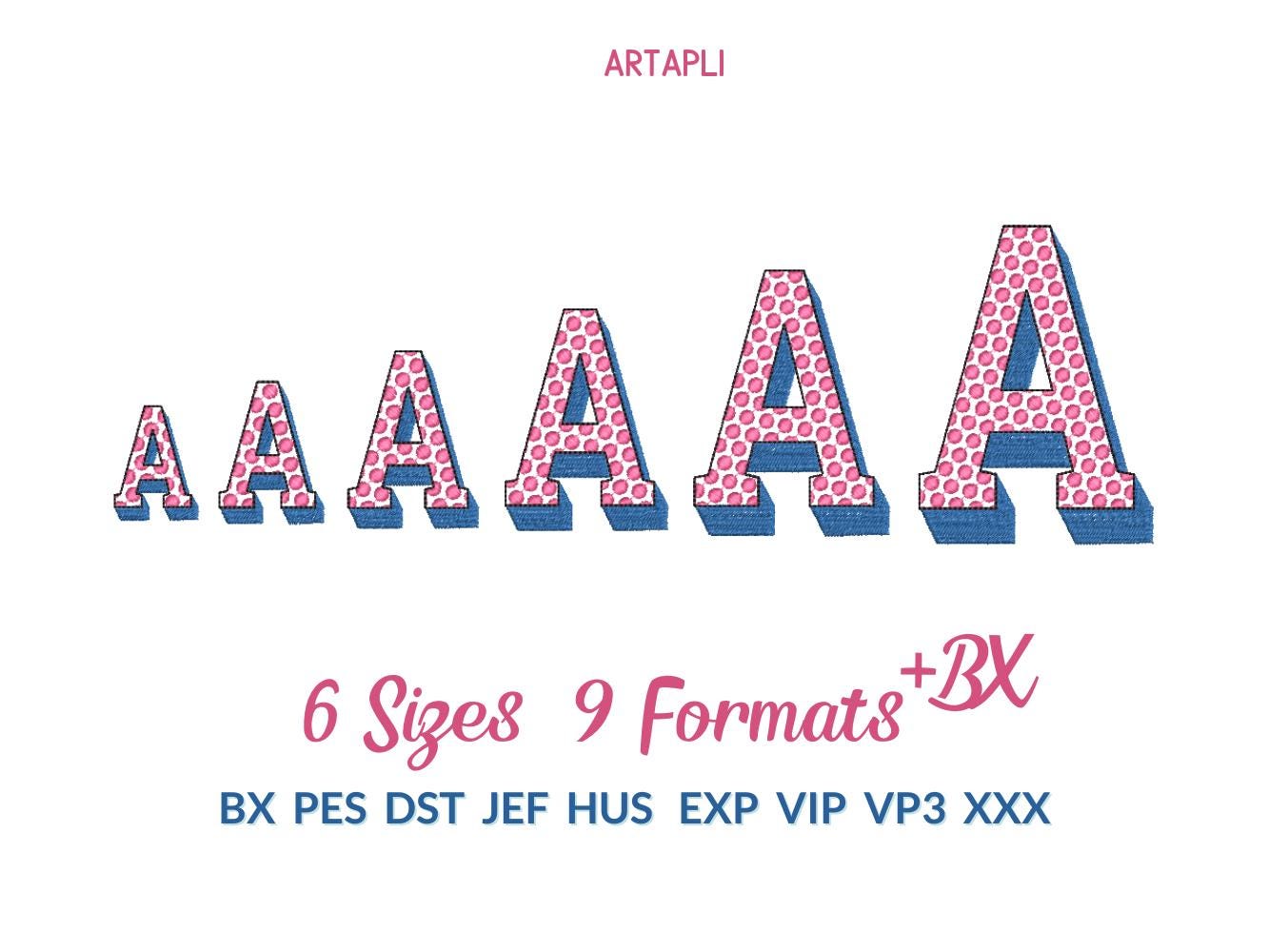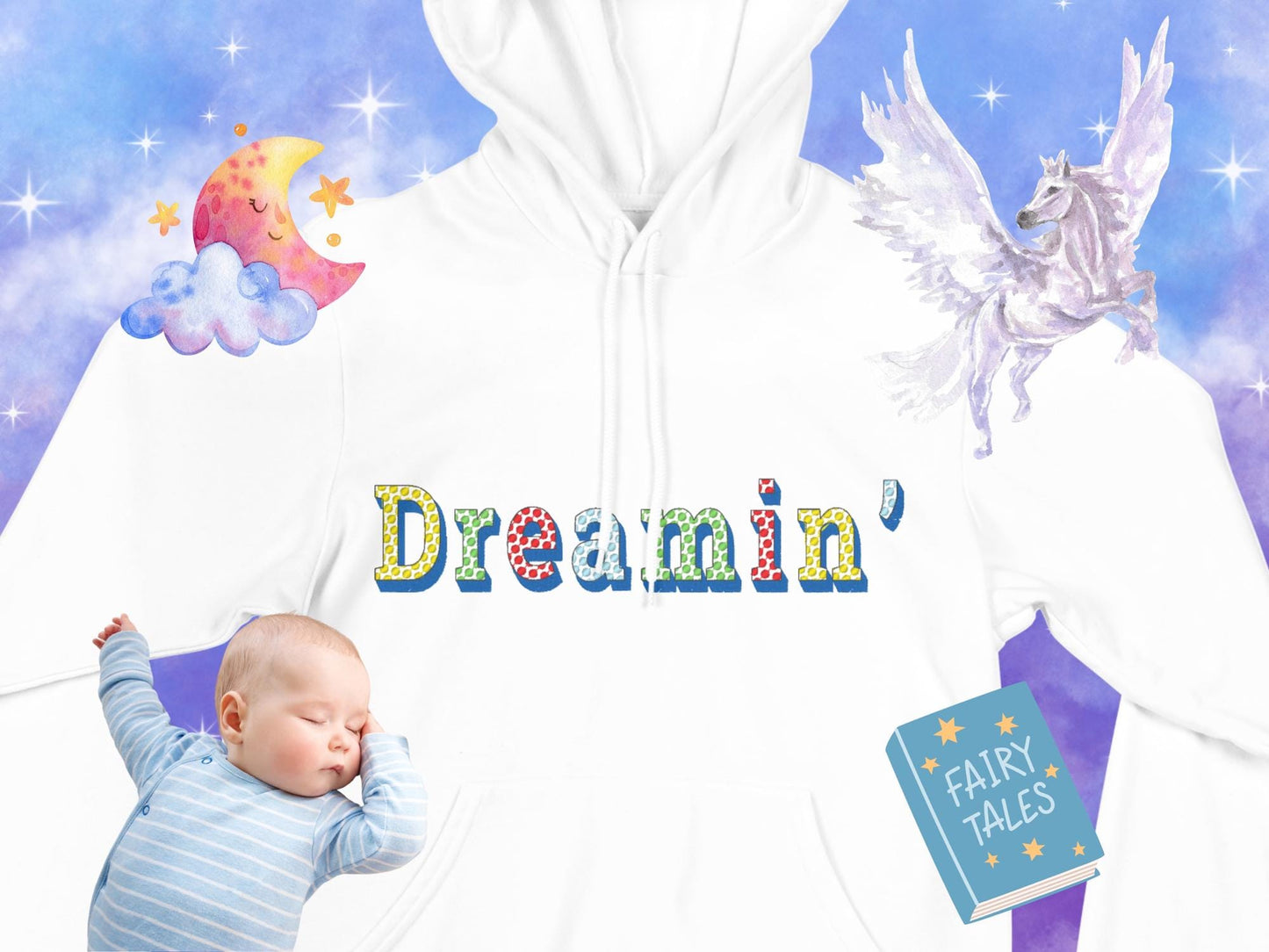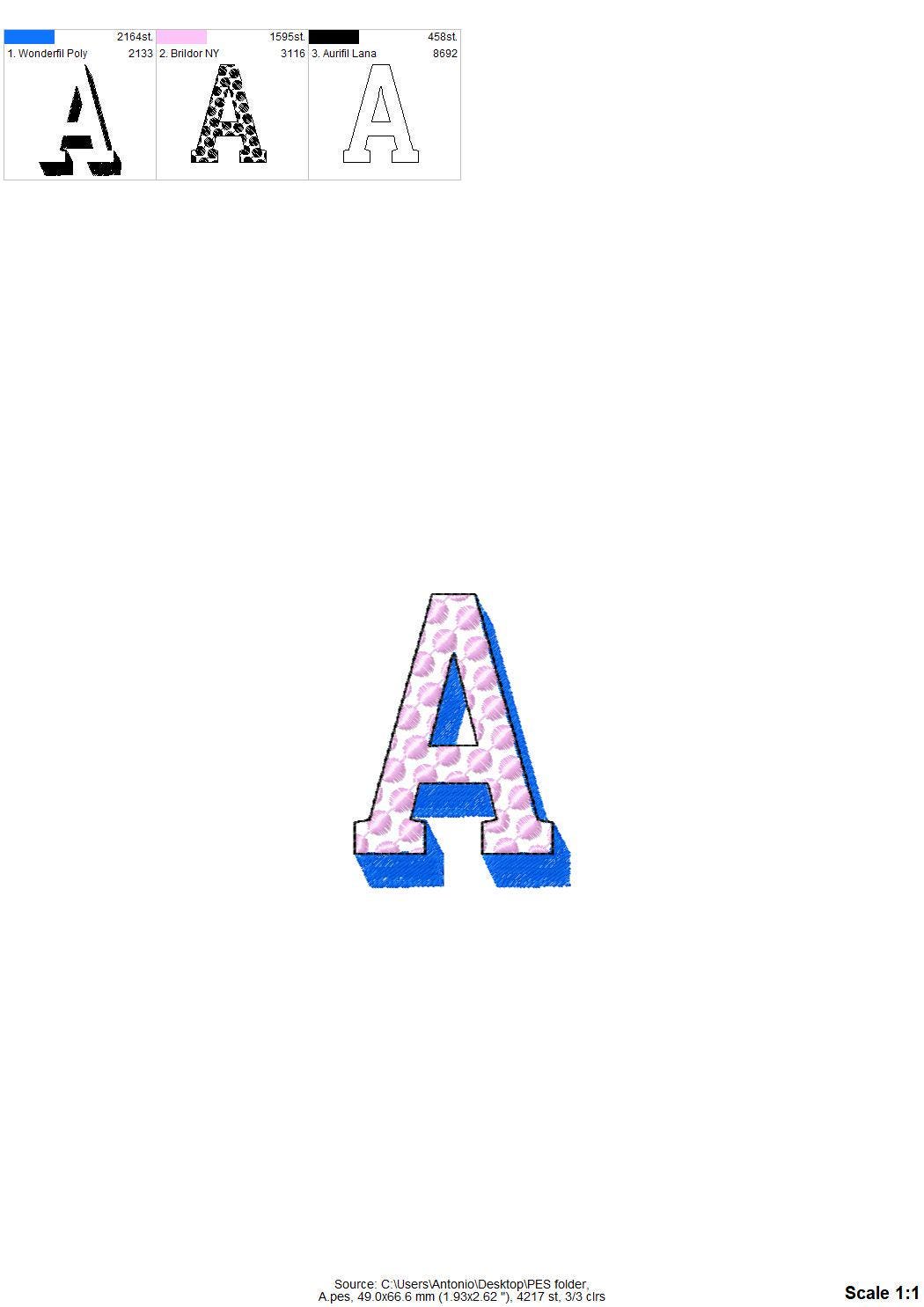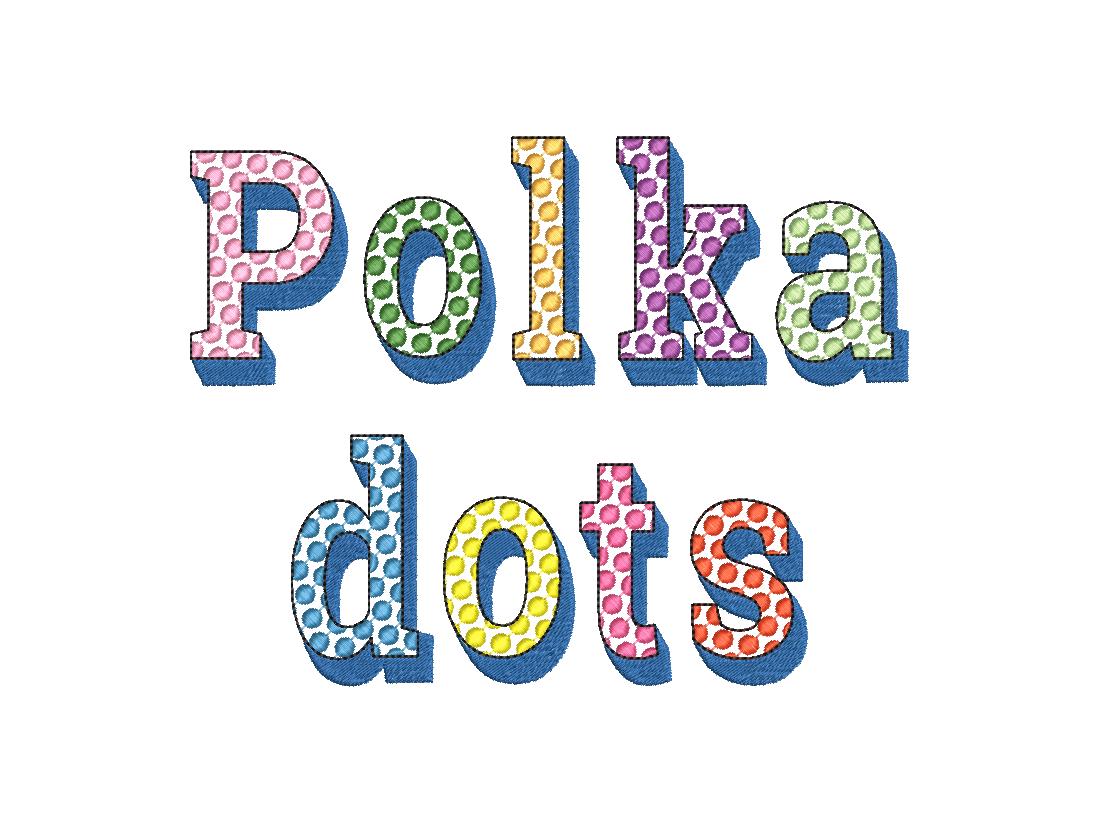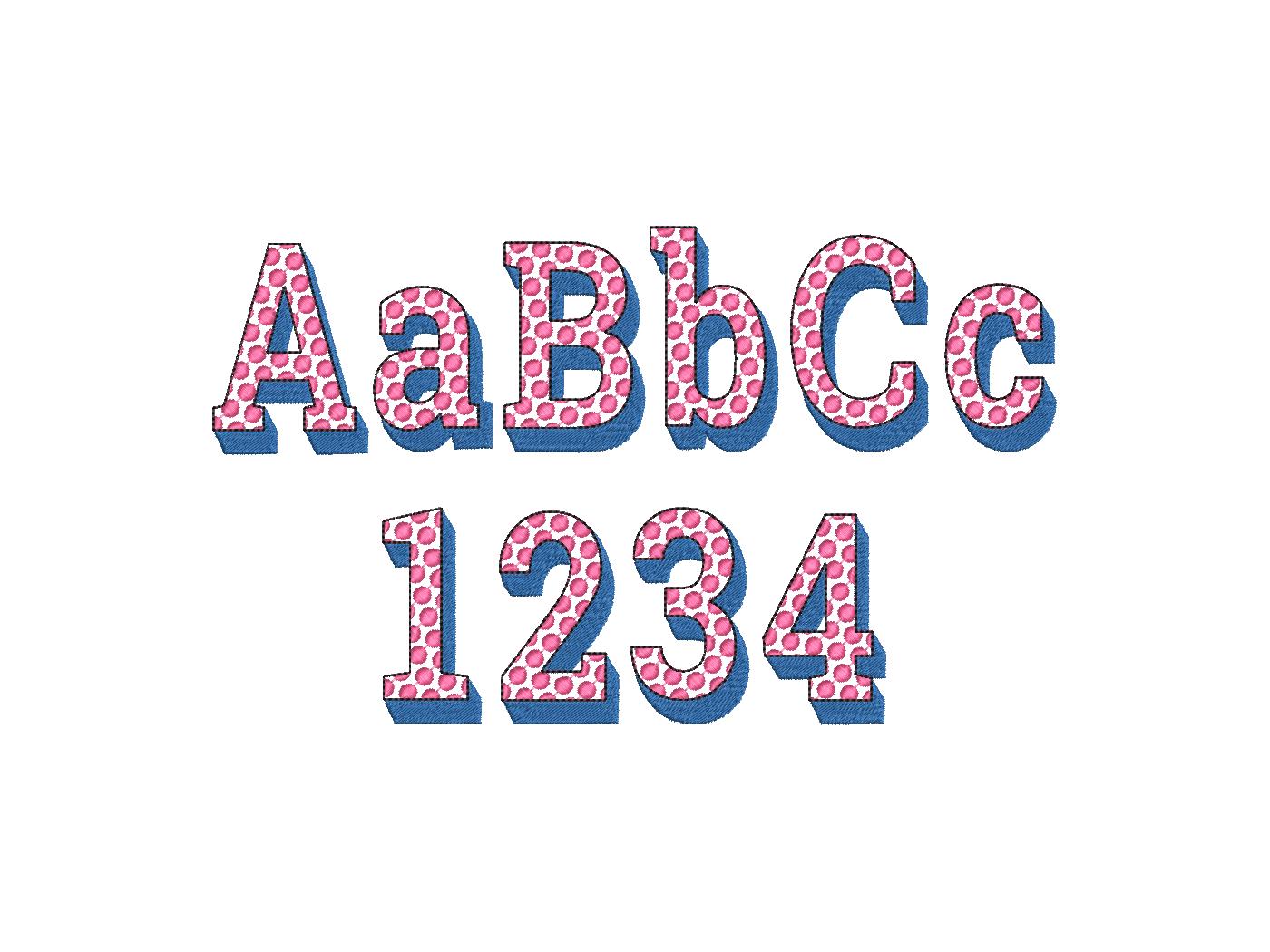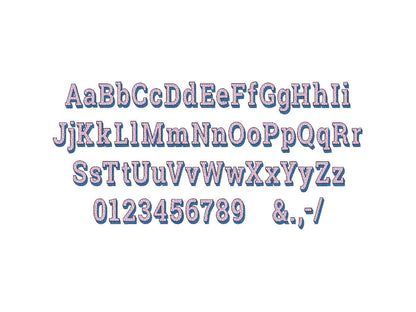
Or click to open the linkA polka dot font with a shadow, for playful names and monograms on kids' shirts, bags and pillows.
Open letters with stitched dots, a fill stitch shadow and a bean stitch outline. Uppercase and lowercase letters, numbers and punctuation in six sizes: 1.7, 2.1, 2.6, 3.3, 4 and 4.7 inches.